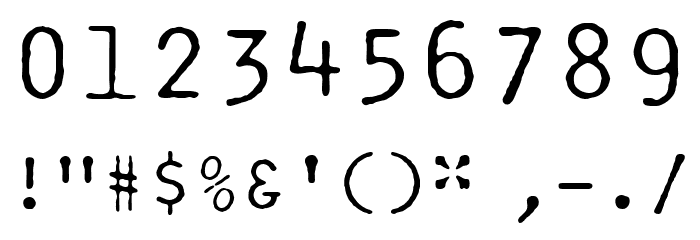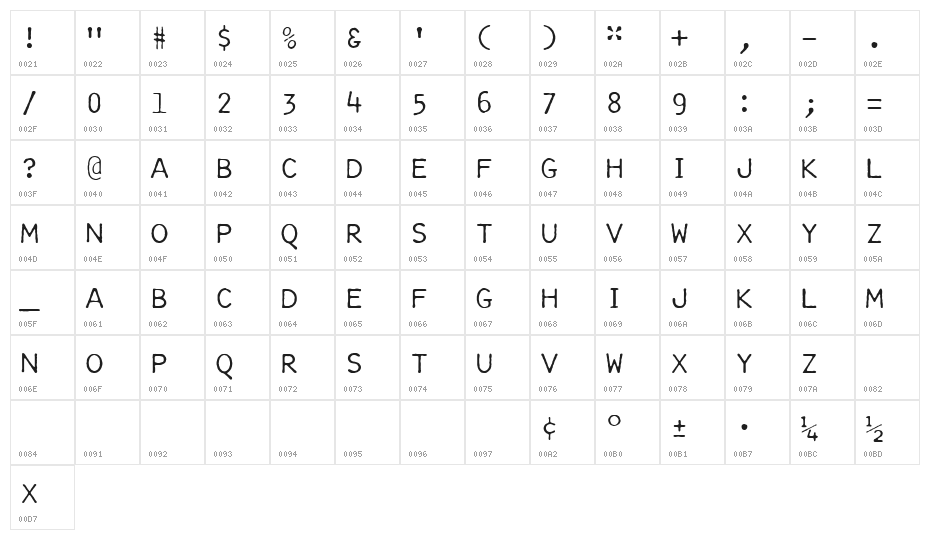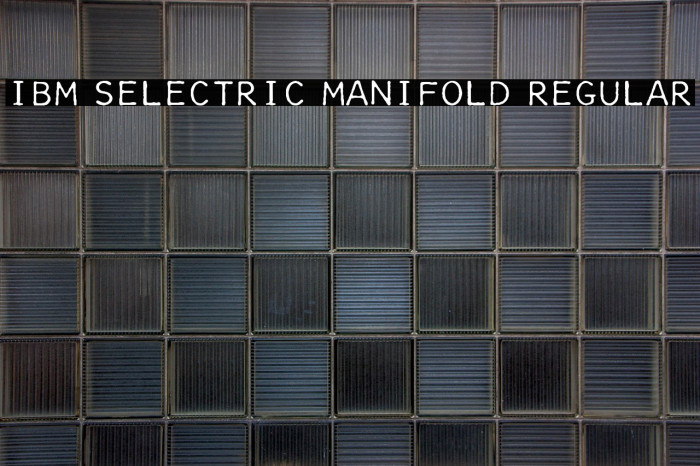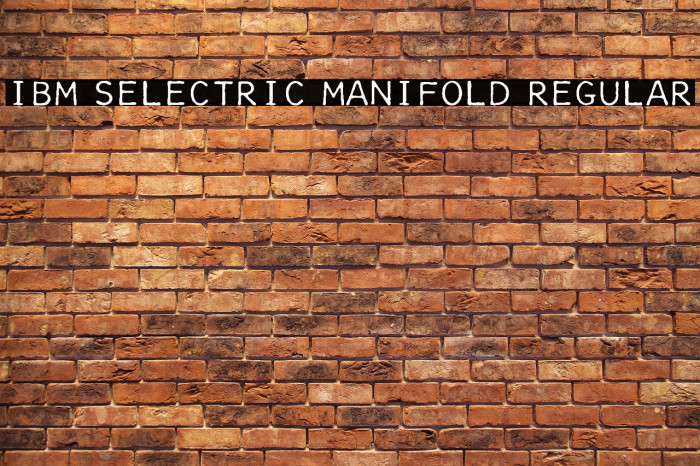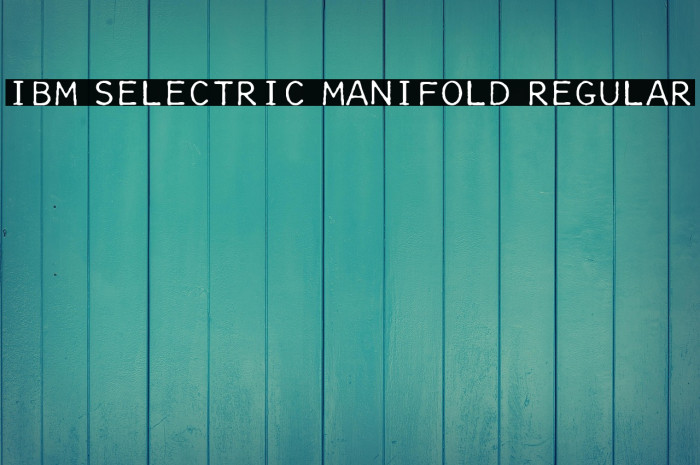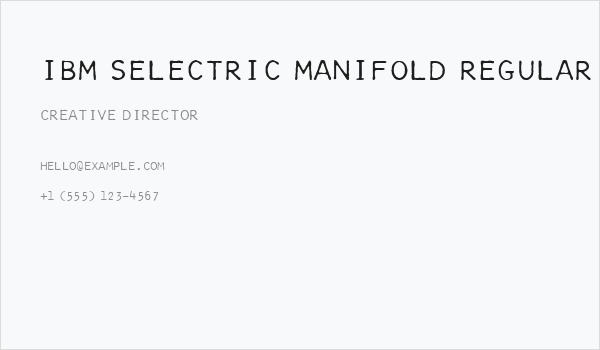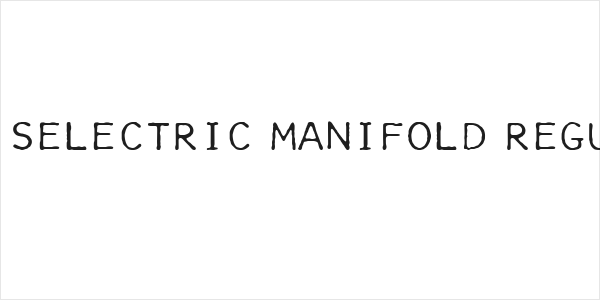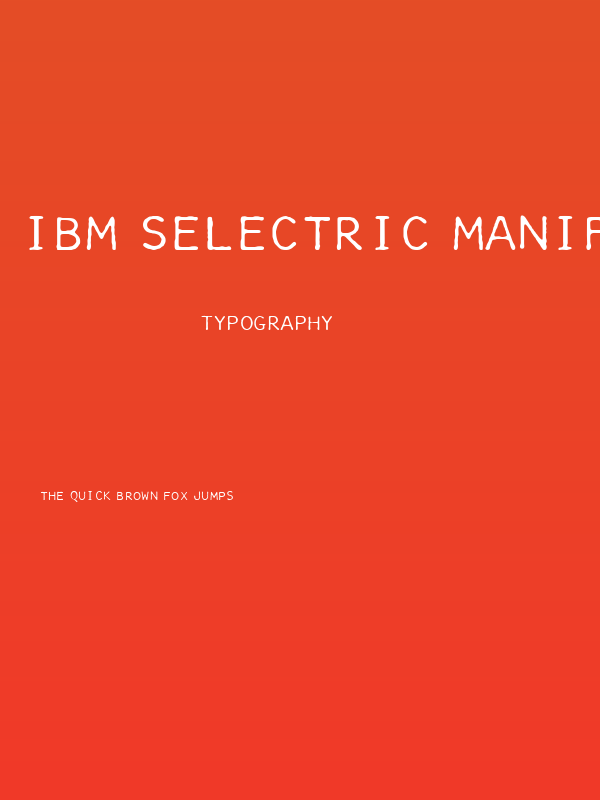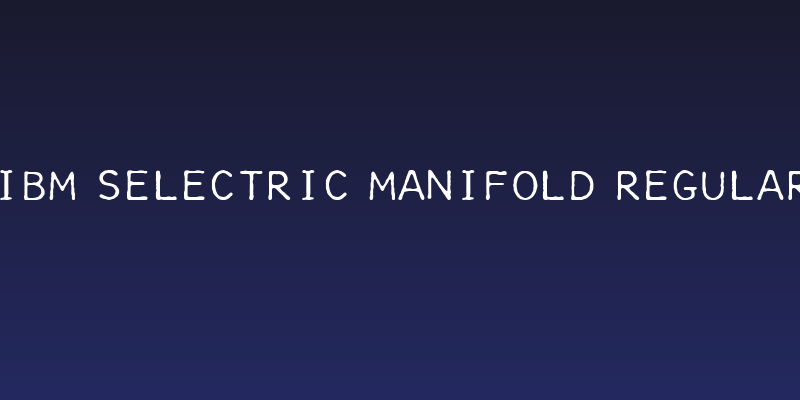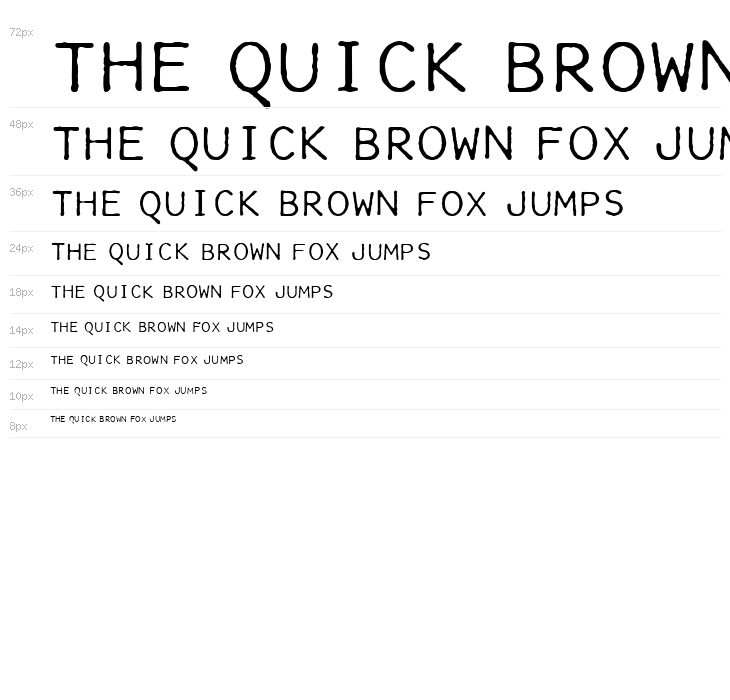
IBM Selectric Manifold Regular Font
IBM Selectric Manifold Regular Description
This typeface features a distinctive, slightly irregular stroke that gives it a hand-drawn appearance, reminiscent of typewriter fonts. The characters are bold and rounded, with a playful yet vintage feel. The uppercase and lowercase letters maintain a consistent style, with a slight variation in stroke width that adds to its charm. Numbers and special characters are designed with the same quirky, organic touch, making the font versatile for various creative applications. Its unique style is both nostalgic and modern, suitable for projects that require a personal, handcrafted look.
| Proposed Projects | Ideal for retro-themed designs, creative projects, invitations, and branding that seeks a personal touch. |